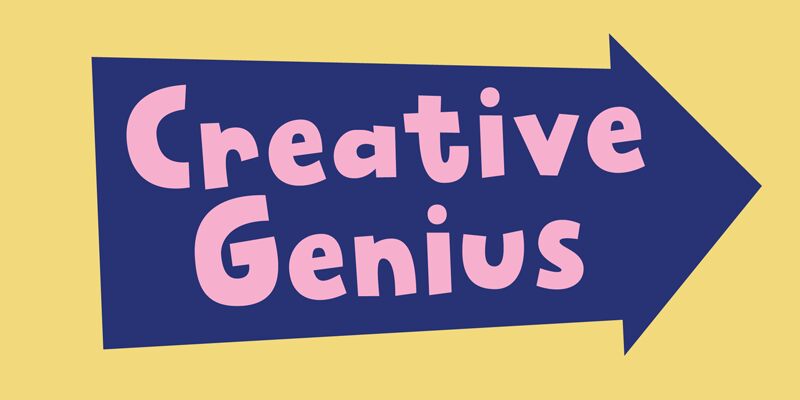
Creative Genius DEMO
Creative Genius is a bold, cartoon-style display font that exudes a sense of playfulness and imagination. Designed by Pizzadude, this font boasts a distinctive, hand-drawn aesthetic that immediately captures the viewer's attention. The thick, dynamic strokes and quirky, irregular shapes lend the font a whimsical, almost childlike charm, making it a perfect choice for a wide range of designs that aim to convey a fun, lighthearted tone.
From eye-catching logos and playful advertisements to vibrant book covers and engaging children's illustrations, Creative Genius seamlessly adapts to a variety of creative contexts. Its versatility and striking visual presence make it an excellent option for designers seeking to add a touch of creativity and personality to their work.